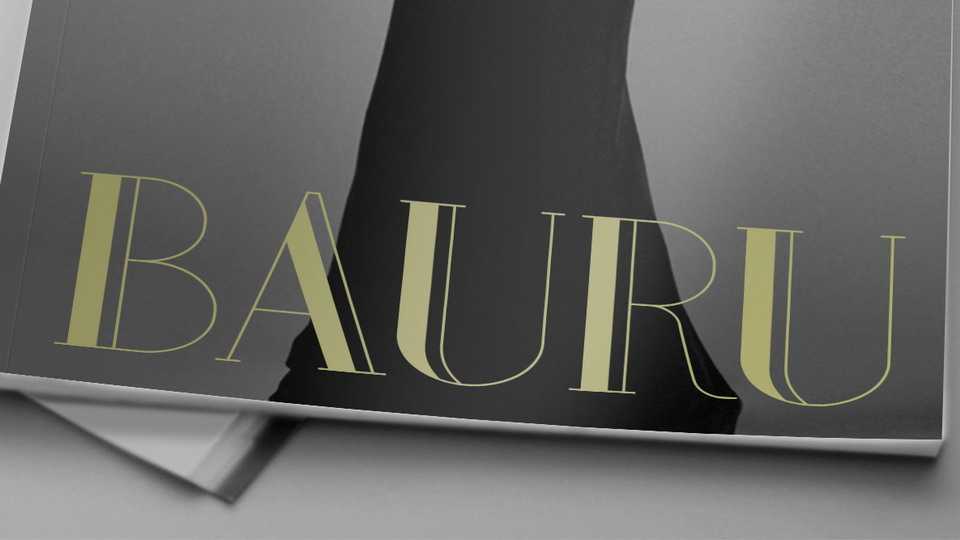
Download Bauru font, an elegant and stylish serif with a retro feel. Perfect for logo and branding, wedding, headlines, posters, magazines and media and other beautiful designs.